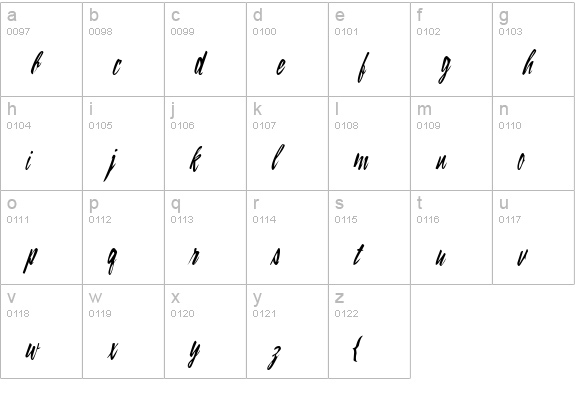
LampoonBrush2 Font Details
LampoonBrush2 font is a stunning and versatile typeface that adds a touch of playfulness and charm to any design. With its bold and expressive brush strokes, this font effortlessly captivates attention and brings your words to life. It is perfect for creating eye-catching headlines, posters, logos, and more. What sets LampoonBrush2 apart is that it is a free font, making it accessible to everyone. You can easily download it from FontsMarket.com, a reliable source for high-quality fonts. Whether you are a professional designer or an aspiring creator, LampoonBrush2 provides you with the tools to unleash your creativity without any financial constraints. This font offers a wide range of uppercase and lowercase letters, numerals, punctuation marks, and special characters. Its unique brush style creates a sense of authenticity and adds a personal touch to your projects. LampoonBrush2 font is highly versatile and can be used for various design purposes, from branding and advertising to social media graphics and website design. With its smooth curves and dynamic letterforms, LampoonBrush2 font brings a sense of energy and movement to your texts. It effortlessly conveys a sense of fun and excitement, making it ideal for projects that require a touch of whimsy. Whether you're designing a children's book cover or a cheerful greeting card, this font will undoubtedly leave a lasting impression. Embrace the freedom of creativity with LampoonBrush2 font. Download it for free from FontsMarket.com and let your imagination run wild. Its availability at no cost ensures that you can experiment and explore different design possibilities without any limitations. Stand out from the crowd and make a statement with LampoonBrush2 font – a truly remarkable typeface that combines style, versatility, and affordability.